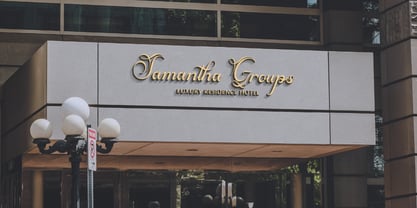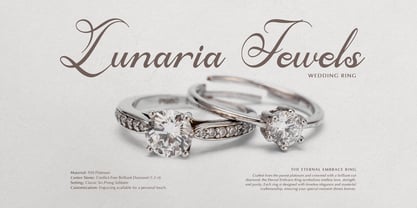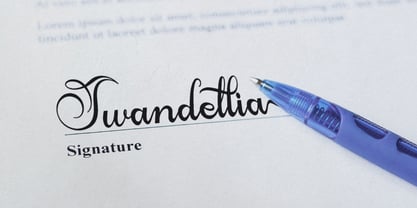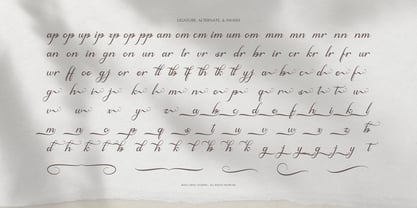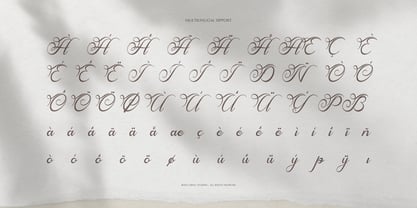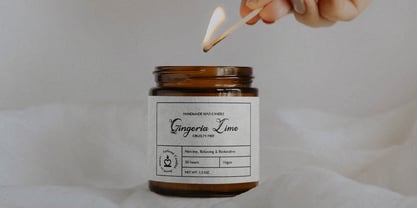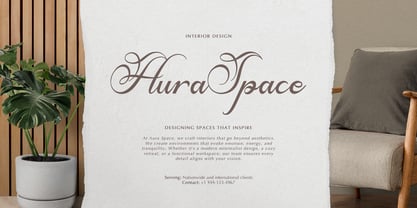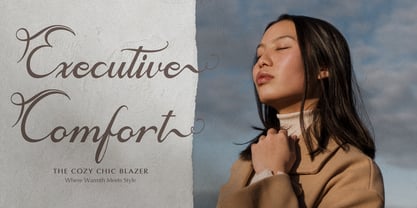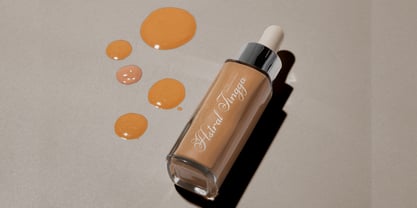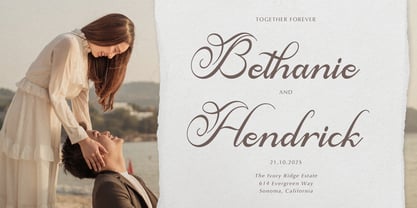
Mutasha Wonderal
by Denustudio
The Mutasha Wonderal Font Family was designed by Dede Nugraha and published by Denustudio. Mutasha Wonderal contains 2 styles and family package options. More about this family
Mutasha Wonderal | Beautiful Calligraphy, from Denustudios, suitable for any projects such as: logos, branding projects, homeware designs, product packaging, mugs, quotes, posters, shopping bags, t-shirts, book covers, name card, invitation cards, greeting cards, label, photography, watermark, special events, and all your other lovely projects that need Beautiful Calligraphy a taste.
• Regular and Italic
• Standard glyphs
• Alternate and Ligature
• Fonts include multilingual support
Designers: Dede Nugraha
Foundry: Denustudio